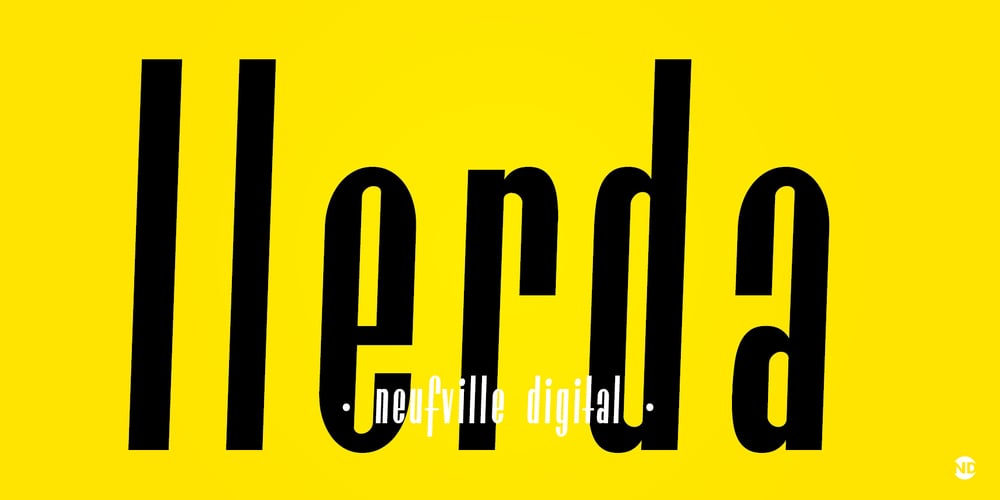
Ilerda ND Font Family was designed by Enric Crous-Vidal and published by Neufville Digital. Ilerda ND contains 1 styles and family package options. Also referred to as ‘Champs Elysées’ in France. This is the first typeface created by Crous-Vidal in the field of Grafía Latina. It is a character that expresses strength, and energy yet retains a certain elegance and even a touch of flirtatiousness.Ilerda is a Trademark of BauerTypes SL